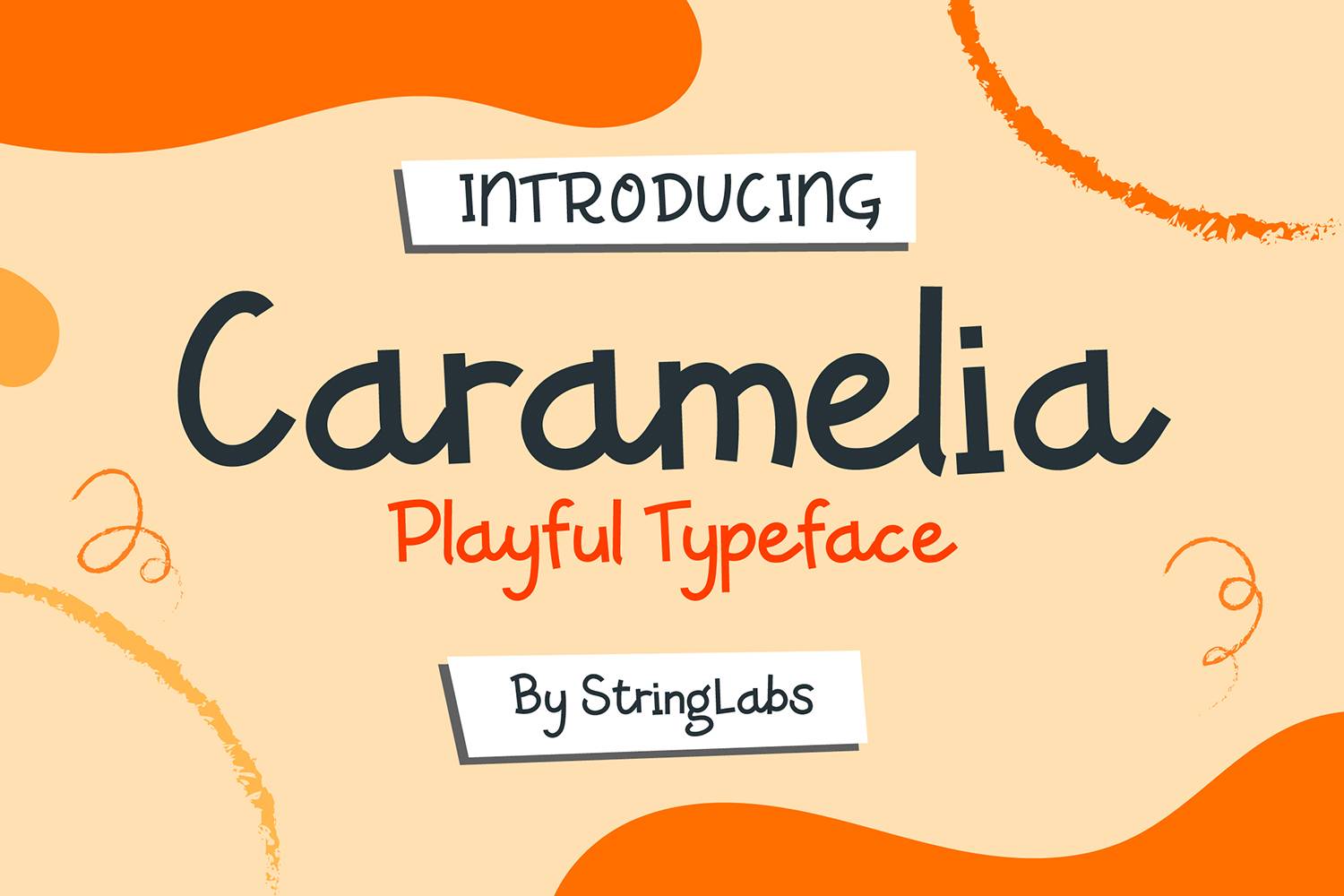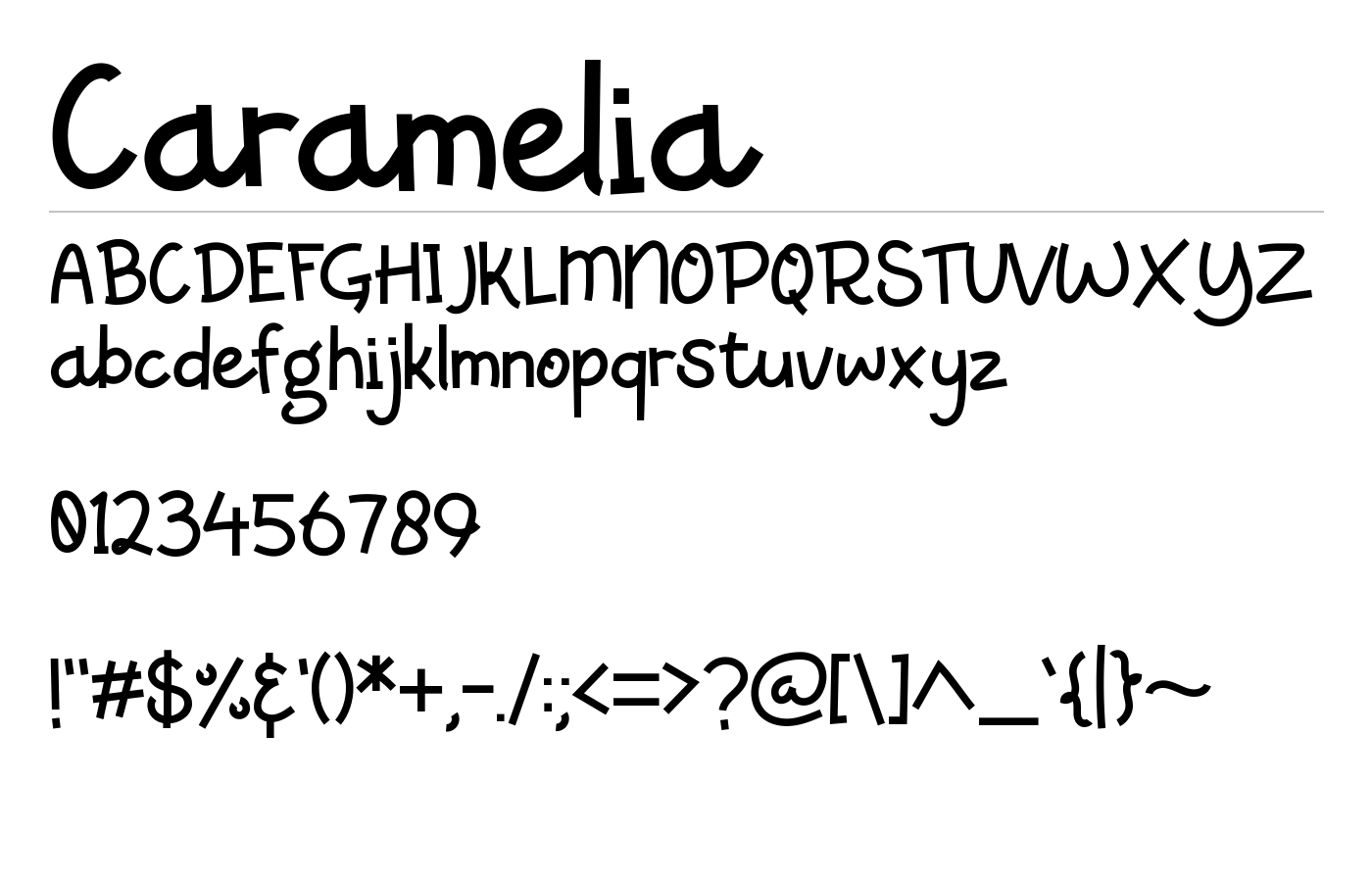
Caramelia is a playful, casual handwritten sans serif font with a friendly and whimsical vibe. Its slightly irregular letterforms and moderate x-height make it approachable and fun, perfect for informal branding, children’s materials, or creative projects where a relaxed and charming style is desired. This font works well for headlines and expressive text that aims to feel personal and inviting.
Caramelia Font
About Caramelia Font